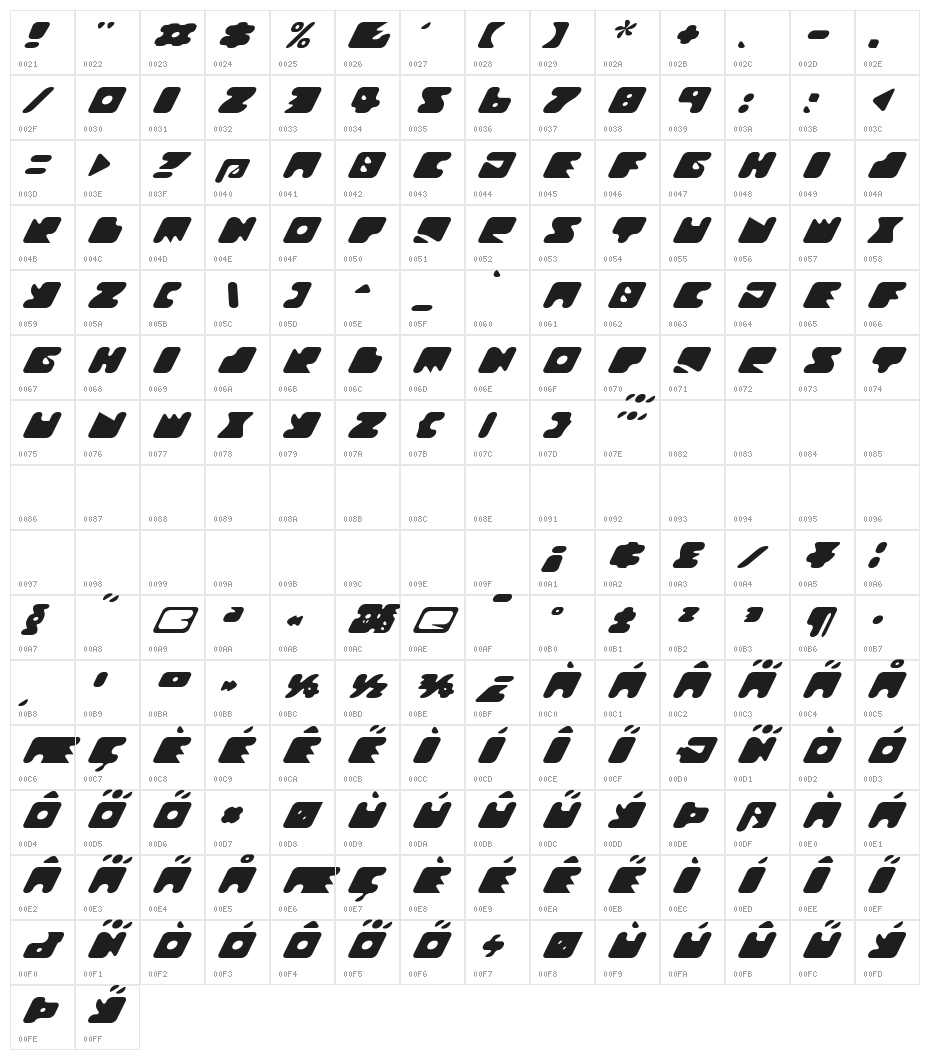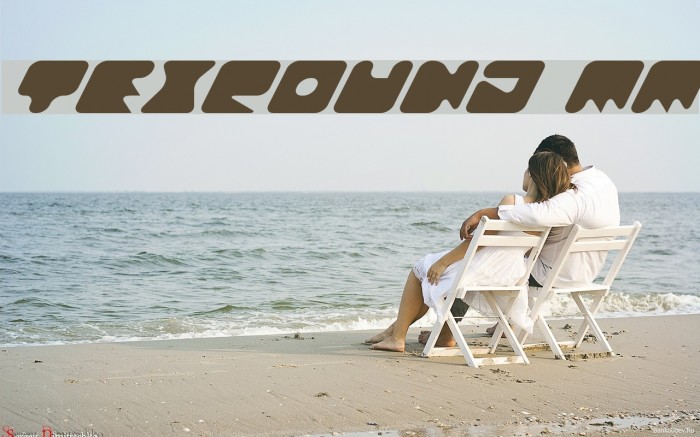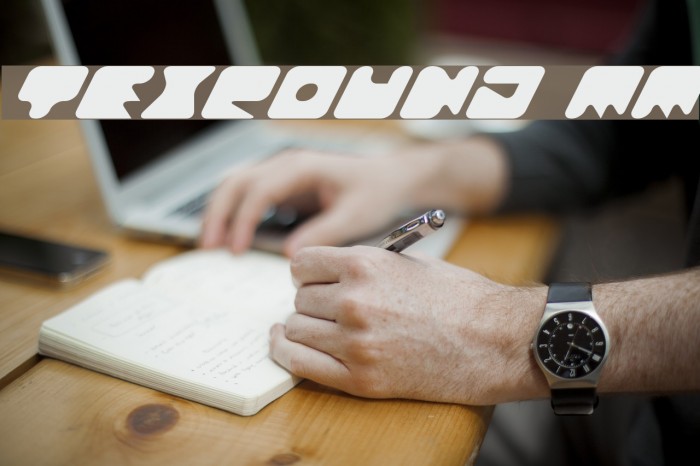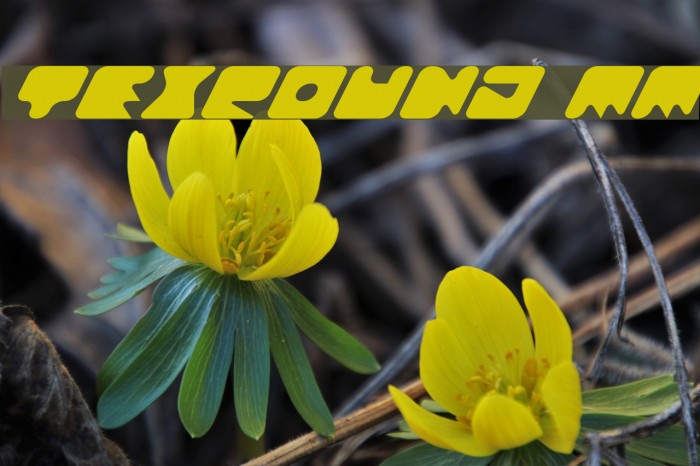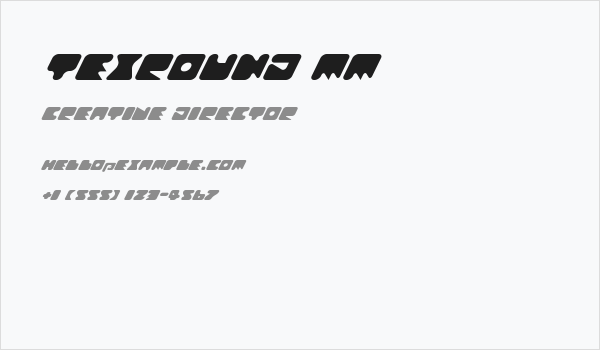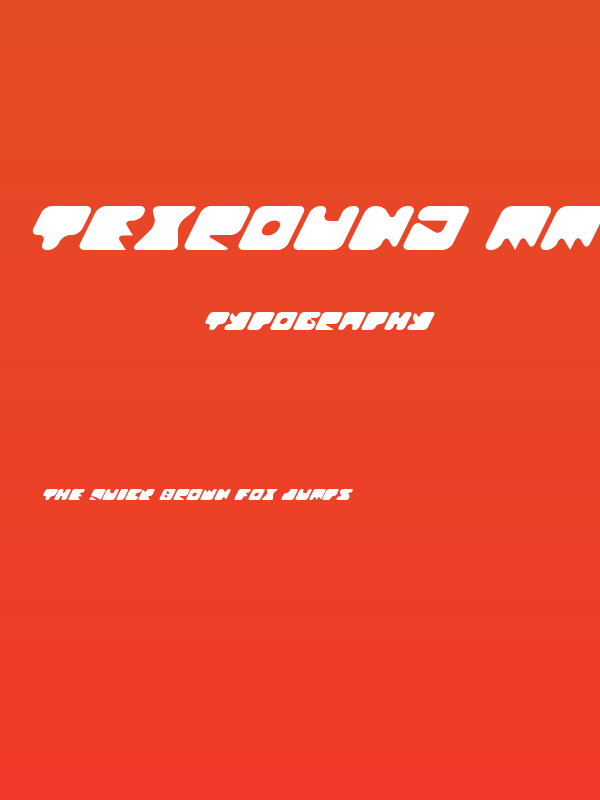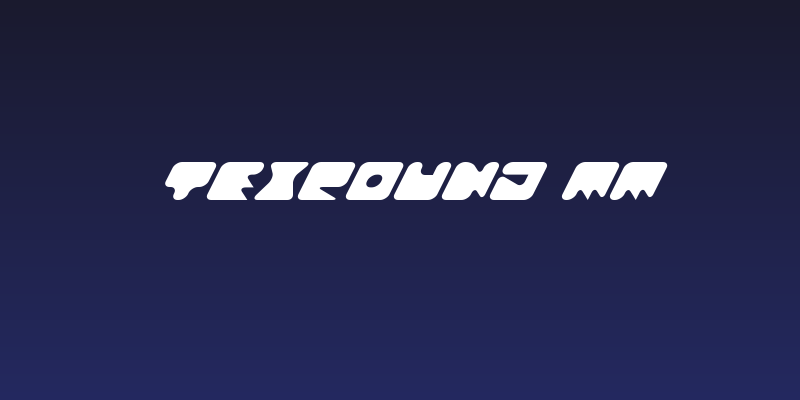
TexRound MM Font
TexRound MM Description
This font features a bold and dynamic design with a futuristic and playful aesthetic. The characters are heavily stylized with thick, rounded edges and unique cutouts that create a sense of movement and energy. The uppercase and lowercase letters maintain a consistent style, with the lowercase being slightly more compact. Numbers and special characters are equally bold, ensuring a cohesive look across all text elements. The font's distinctive appearance makes it stand out, ideal for projects that require a modern and eye-catching typeface.
| Proposed Projects | Ideal for video game titles, tech branding, posters, and modern advertising campaigns. |